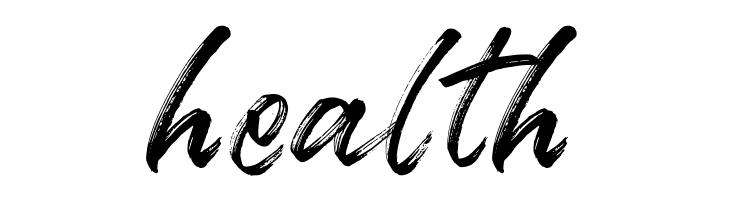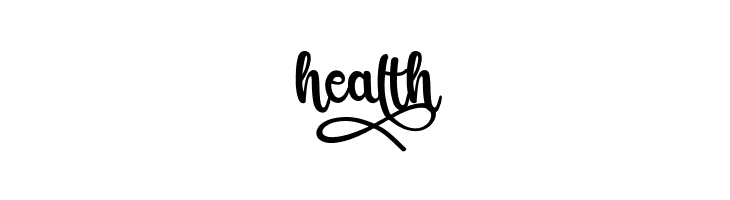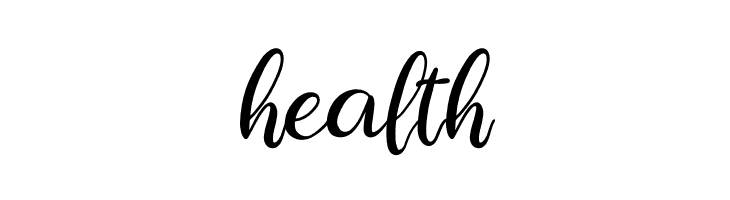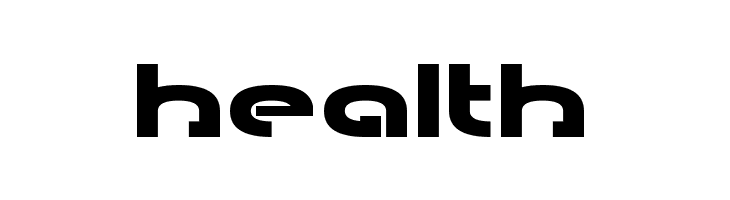
A playful and energetic script font with a hand-drawn appearance.
A flowing, cursive font with elegant, sweeping strokes.
A dynamic, brush-style font with expressive, fluid strokes.
A modern, elegant handwritten font with fluid, cursive strokes.
A slanted, elegant script font with interconnected letters and a handwritten feel.
A bold, elegant script font with high contrast and flowing, interconnected characters.
A bold, futuristic font with geometric shapes and sharp angles.
A fluid and elegant script font with dynamic, flowing letterforms.